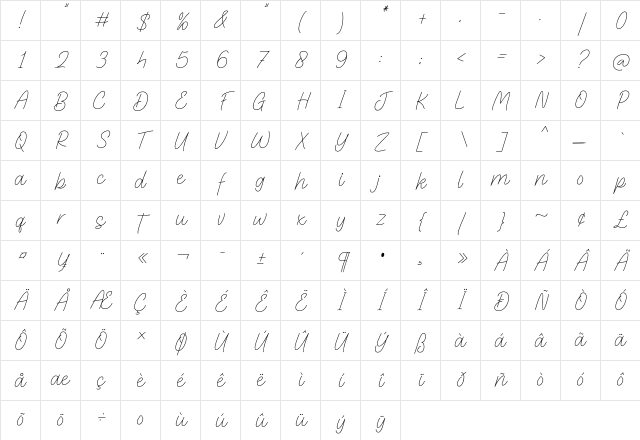
Gentle Signature Demo Regular
Design Context for Gentle Signature Demo
Gentle Signature Demo is a composed and adaptable typeface that performs quietly and consistently across a wide range of design contexts.